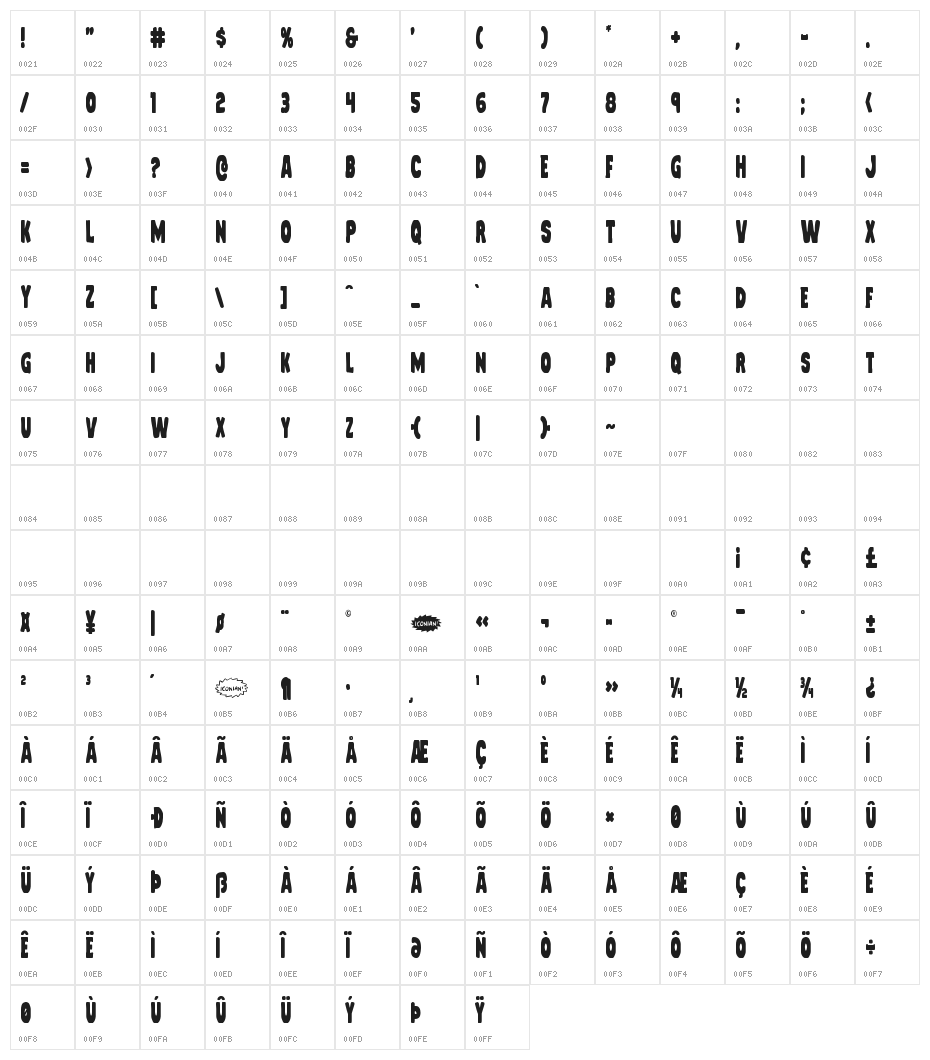
Mystery Mobile Condensed Font
Mystery Mobile Condensed Description
This font features a bold and playful design with a condensed width, giving it a unique and eye-catching appearance. The characters are rounded and slightly irregular, adding a whimsical and informal touch. The uppercase and lowercase letters maintain a consistent style, with thick strokes and minimal contrast, making it highly legible even at smaller sizes. The numbers and special characters follow the same playful aesthetic, ensuring a cohesive look across all text elements. This font is perfect for projects that require a fun and engaging typeface.
Overall StylePlayful, Whimsical
Proposed ProjectsIdeal for children's books, playful branding, posters, and social media graphics.